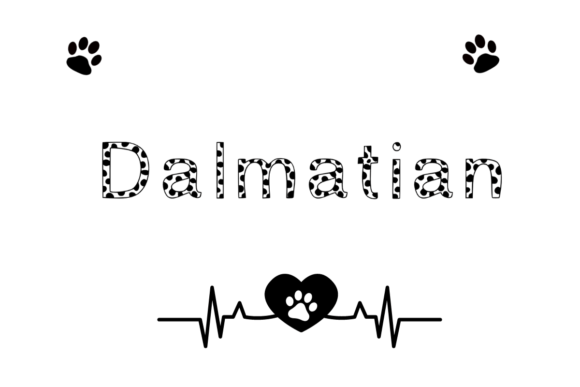
Journey into the realm of captivating typography with Dalmatian Font! This decorative masterpiece, brought to life by the creative mind of fonty88, is a visual symphony that emulates the playful spirit of Dalmatian fur patterns. Its unique and eye-catching design is destined to make your creative endeavors shine, transforming them into captivating works of art.
Immerse yourself in a world of boundless creativity as you explore the limitless possibilities of Dalmatian Font. Whether you're crafting whimsical children's books, adding a touch of humor to your projects, or igniting joy in your designs, Dalmatian Font is your perfect companion. With its distinctive charm, it will effortlessly elevate your projects to new heights of visual appeal.
Picture the delight of young readers as they embark on enchanting adventures through the pages of your Dalmatian-adorned children's book. Each letter dances across the page, embodying the playful spirit of the beloved Dalmatian breed. Its unique texture adds a captivating dimension to the reading experience, engaging young minds and fostering a lifelong love for literature.
Unleash your inner artist and let Dalmatian Font ignite your creative flair. Transform ordinary crafts into extraordinary masterpieces with its playful charm. Create greeting cards that burst with personality, invitations that exude joy, and posters that command attention. Dalmatian Font is the perfect choice for adding a touch of whimsy to any project, leaving a lasting impression on all who behold it.
Step into the spotlight and let Dalmatian Font amplify your creative voice. Its distinctive style will make your designs stand out from the crowd, captivating audiences and leaving them yearning for more. Whether you're creating social media posts, marketing materials, or eye-catching logos, Dalmatian Font will elevate your visuals, turning them into unforgettable experiences.